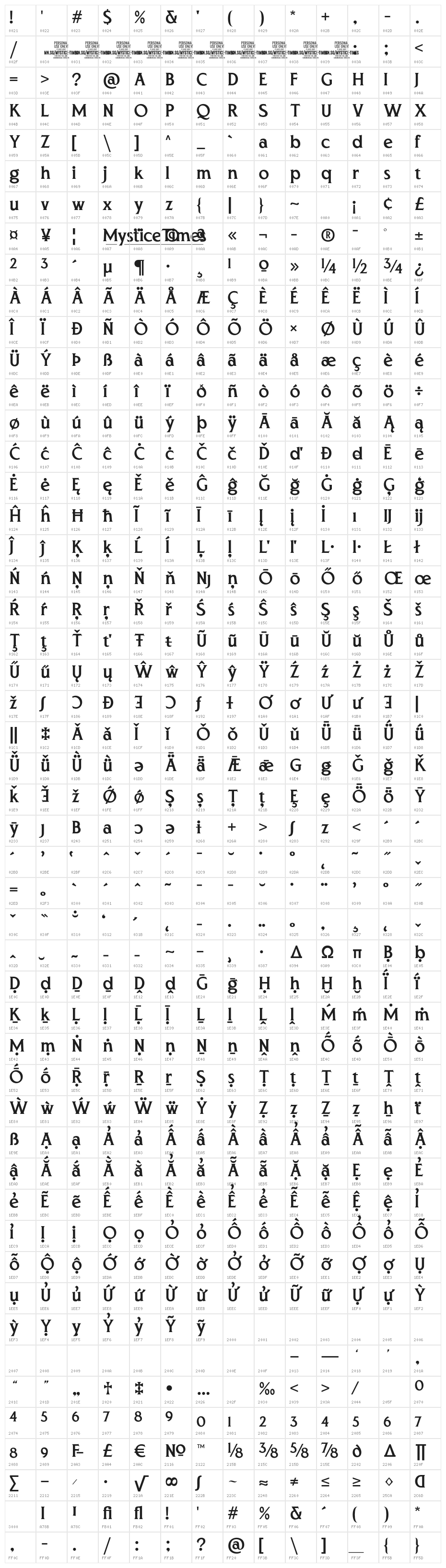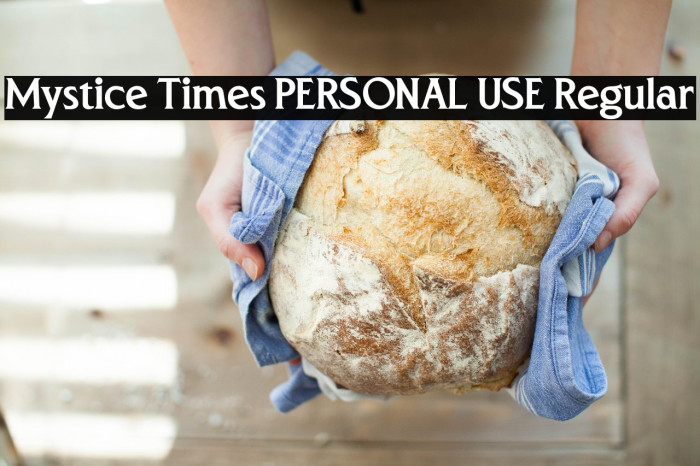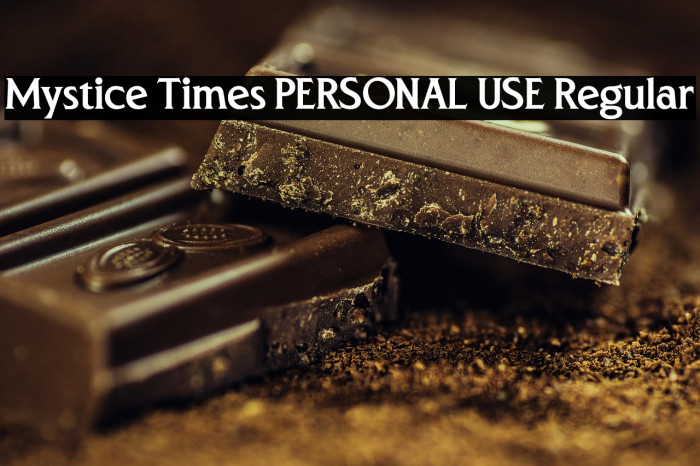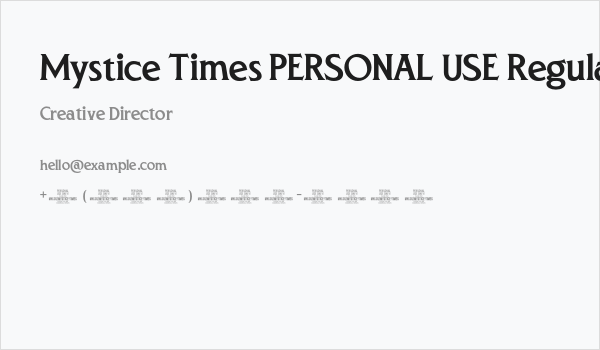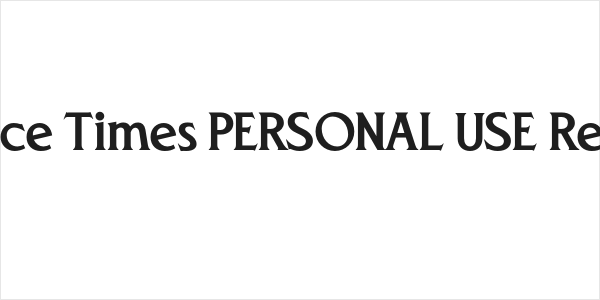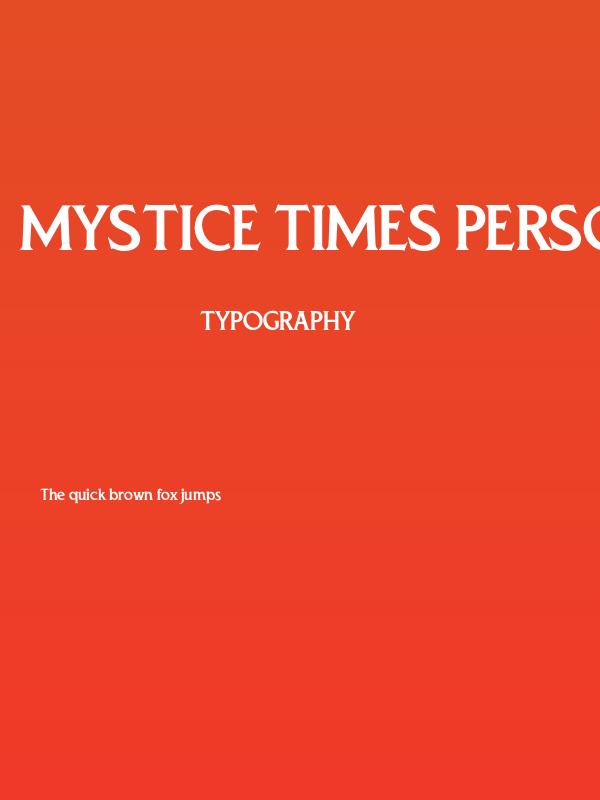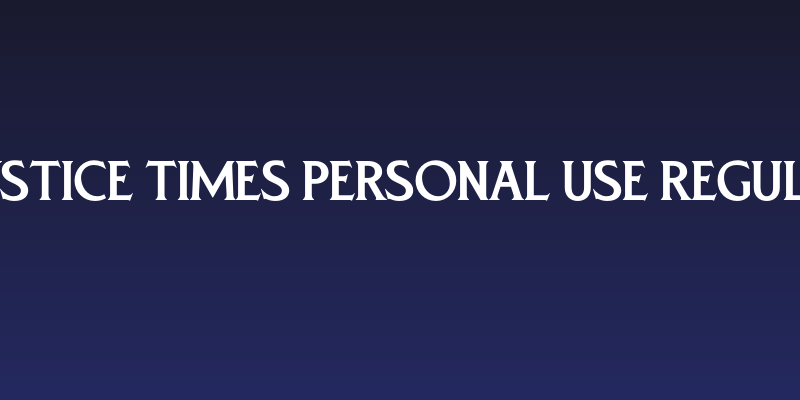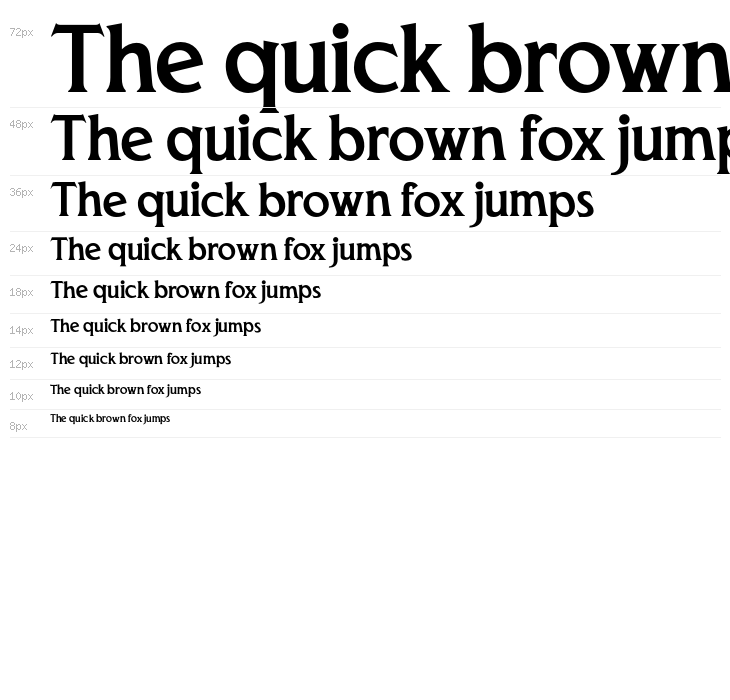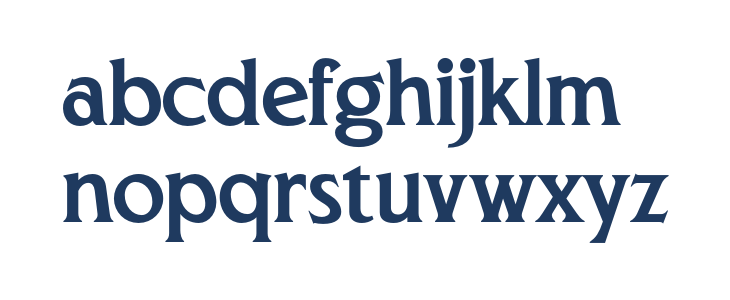
Mystice Times PERSONAL USE Regular Font
Mystice Times PERSONAL USE Regular Description
This font features a classic serif style with a modern twist, characterized by its elegant and slightly elongated letterforms. The serifs are prominent and add a touch of sophistication, making it suitable for formal and traditional designs. The uppercase letters exhibit a strong presence, while the lowercase letters maintain a balanced and readable form. The numbers and special characters are designed to complement the overall aesthetic, ensuring consistency across different uses.
| Proposed Projects | Ideal for book covers, editorial design, branding projects, and formal invitations. |